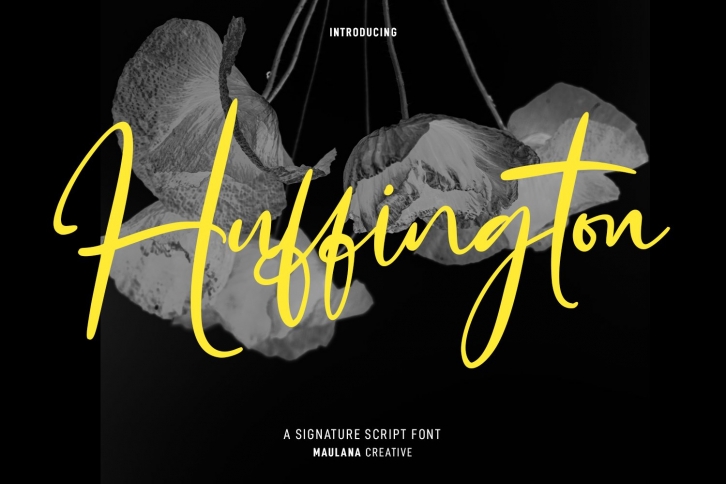
Huffington Signature Script is a beautiful font that was designed by Maulana Creative. It's a great choice for designers and creatives who need such a font. It was released on June 14, 2022 and the file size is 18.41 MB. Huffington Signature Script may give a more youthful, expressive and casual look to your project. It is a very beautiful, refined, elegant, and high-quality font.